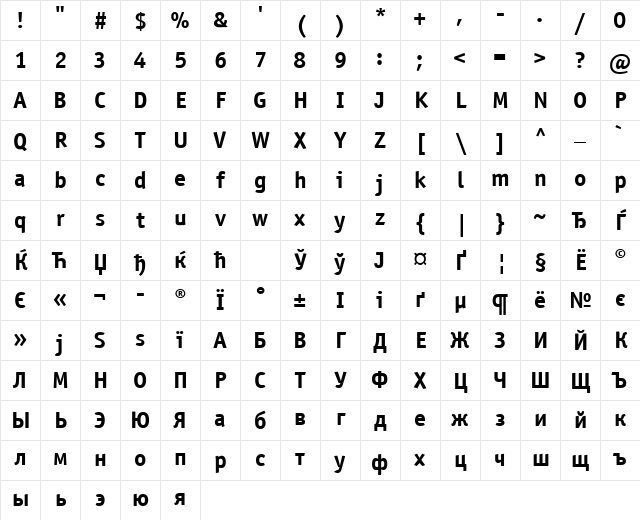
OfficinaSansCTT Bold Free Font
OfficinaSansCTT Bold
Design Context for OfficinaSansCTT
OfficinaSansCTT is a composed and adaptable typeface that performs quietly and consistently across a wide range of design contexts. Its bold stroke weight gives it real presence on the page.